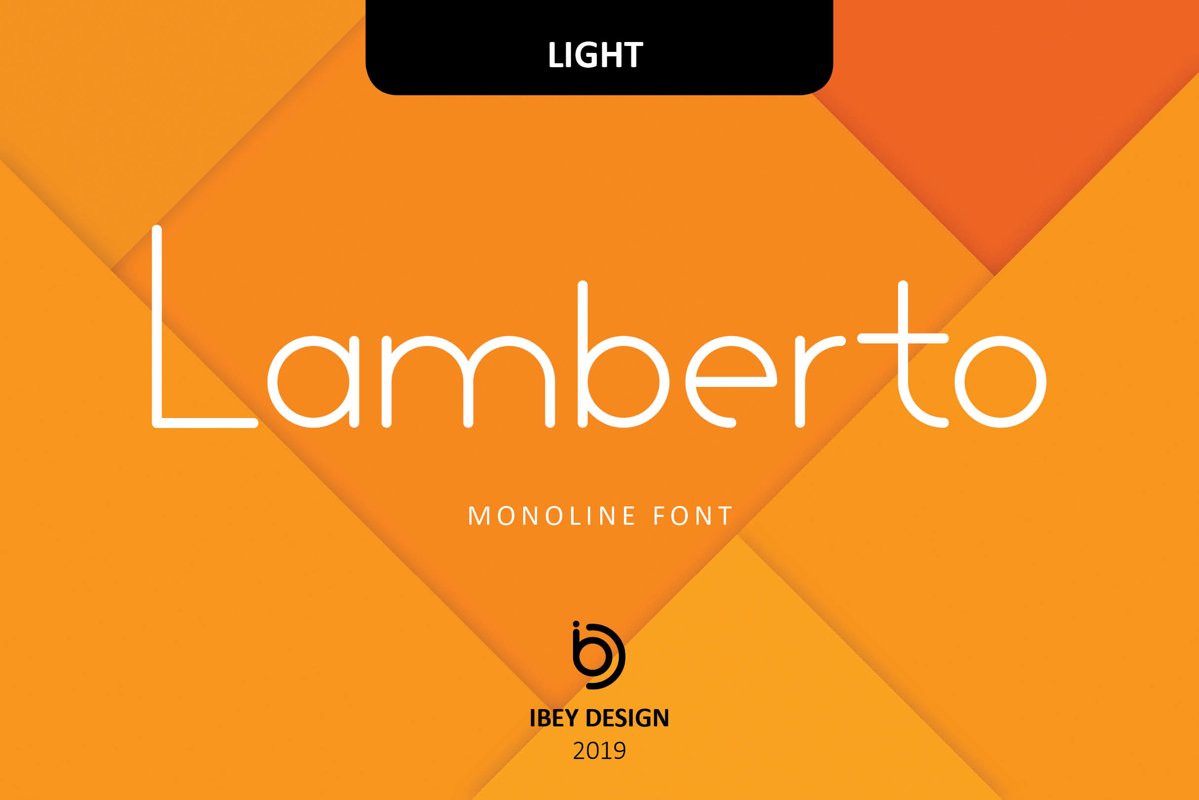
Lamberto Light - Monoline Font
Introducing: Lamberto! A monoline font with single line style and weight.
Lamberto is perfect for crafting, photography, watermark, social media posts, advertisements, logos & branding, invitation, product designs, label, stationery, product packaging, special events etc.
•Lamberto with Line style